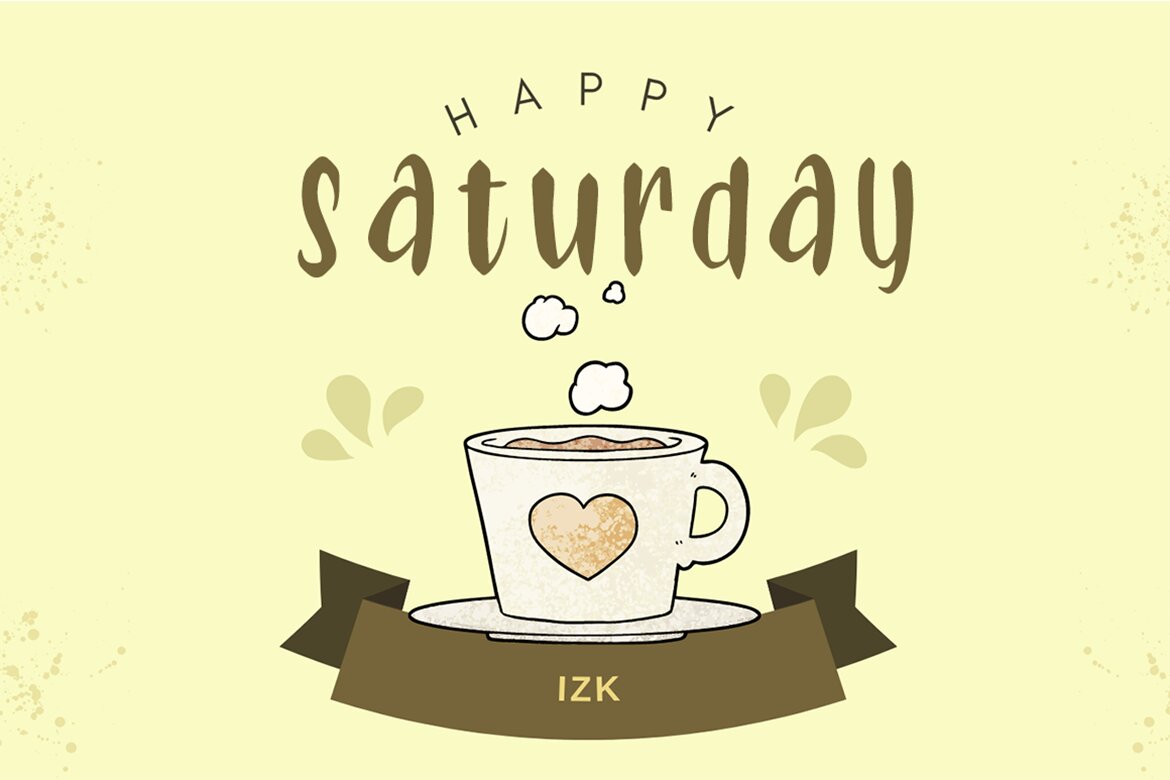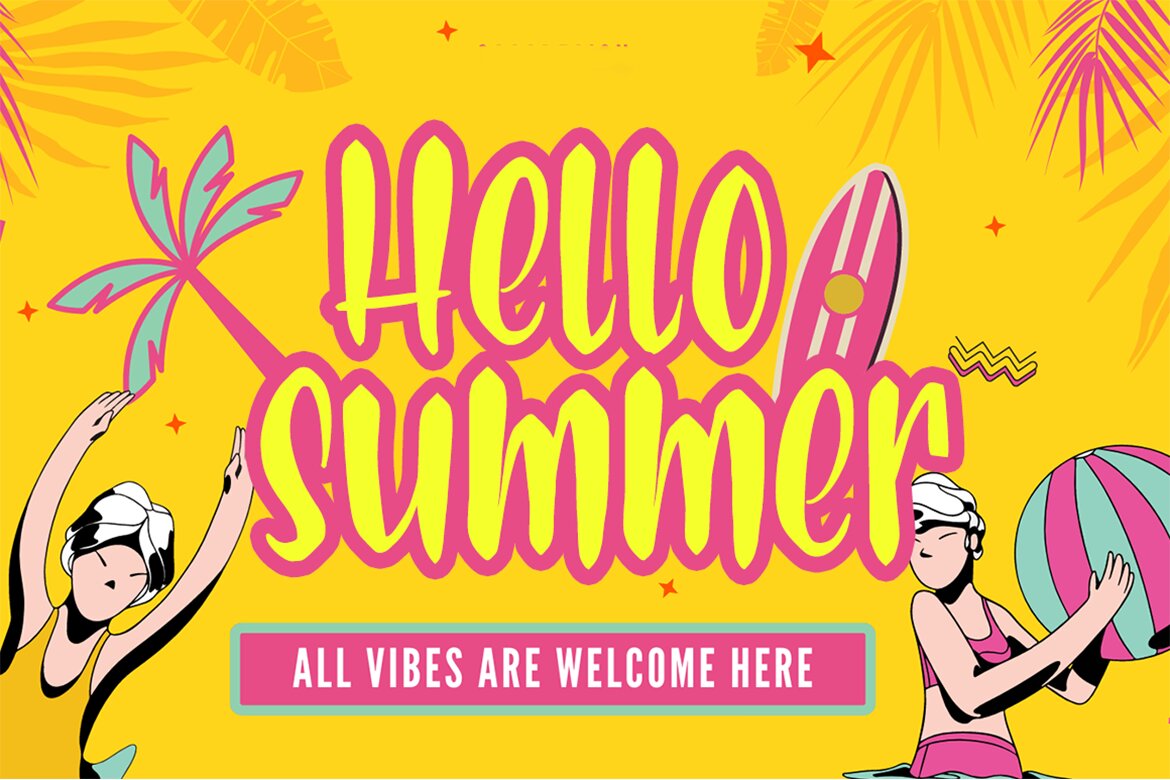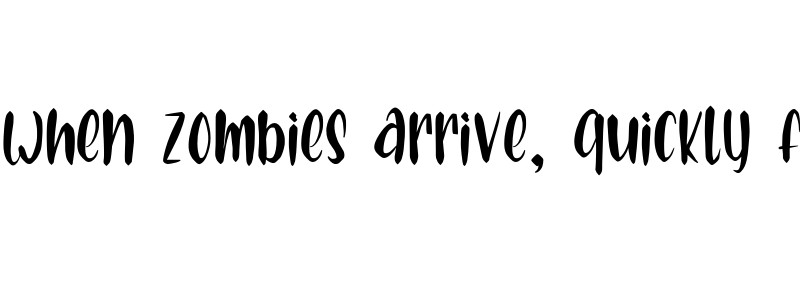
Absurd FREE Font
Absurd is a fresh and modern handwritten font with a clean and inviting appearance. Its flowing letterforms feature smooth curves and subtle variations in stroke width, giving it a natural and organic feel. The font is perfect for designs that require a sense of warmth and approachability, such as wedding invitations, greeting cards, or branding for lifestyle or wellness brands.